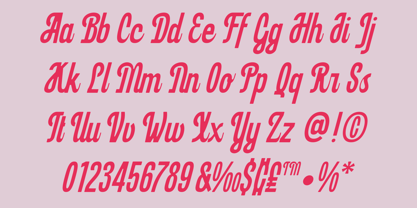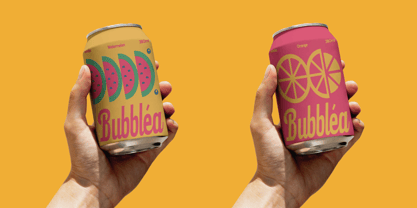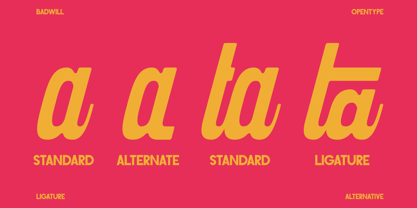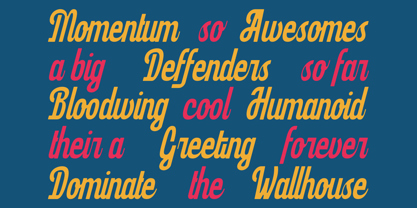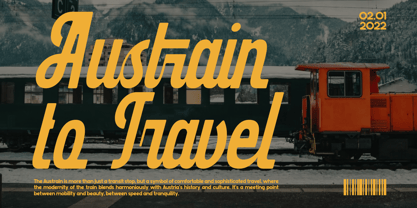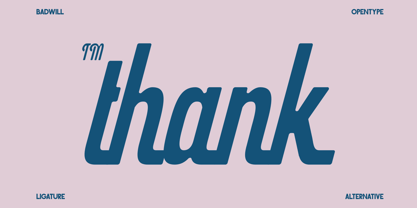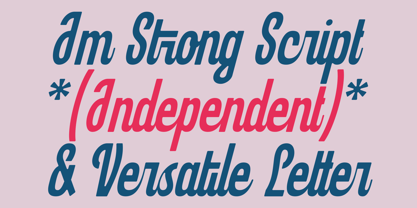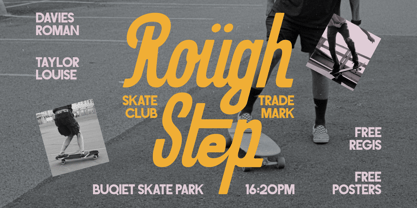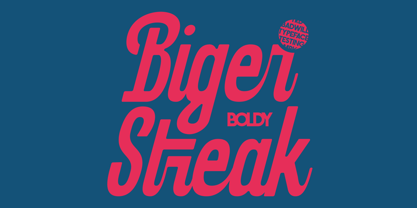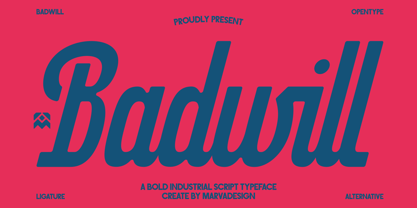
Badwill
The Badwill Font Family was designed by Febrie Setiawan and published by Marvadesign. Badwill contains 1 styles. More about this family
Badwill is a bold industrial script typeface that combines retro energy with modern confidence. Designed with thick, powerful strokes and smooth flowing connections, this font carries a strong handcrafted personality while maintaining a clean and controlled structure. The letterforms feature rounded terminals, dynamic curves, and slightly condensed proportions, creating a compact yet impactful appearance. Its high-contrast rhythm between thick vertical strokes and softer connecting lines gives the typeface a sense of movement and momentum, making it visually striking in large display settings. The capital letters are expressive and dominant, with dramatic swashes and confident curves, while the lowercase characters maintain smooth continuity for excellent readability.